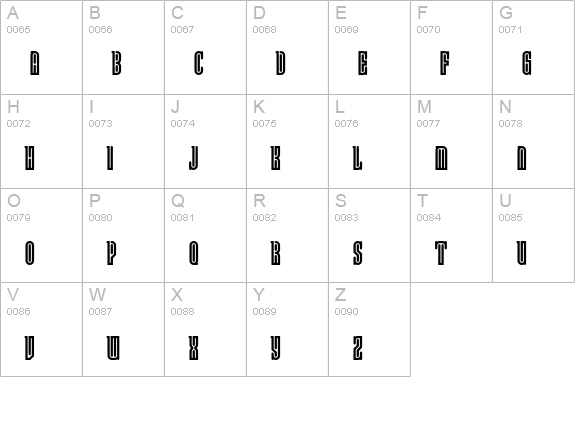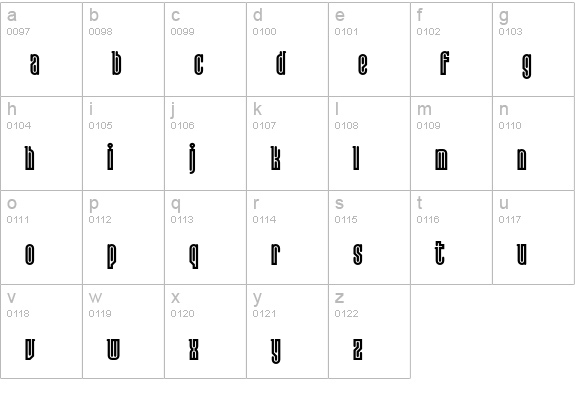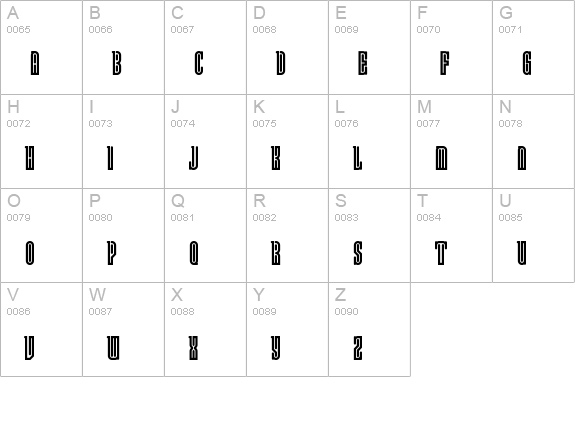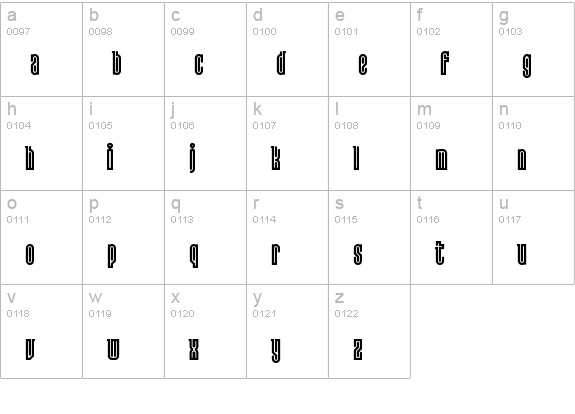
Introducing Lusta-EightySerif font, a stylish and sophisticated typeface that exudes elegance and charm. With its unique serifs and timeless design, Lusta-EightySerif is perfect for adding a touch of class to your projects. Whether you're creating invitations, branding materials, or editorial content, this font will elevate your work to new heights. What sets Lusta-EightySerif apart is not only its classic appeal but also its versatility. This font can effortlessly transition from formal to more casual settings, making it a go-to choice for designers looking to make a statement. Its legibility and readability ensure that your message is conveyed clearly and effectively. And the best part? Lusta-EightySerif is available for free download at FontsMarket.com. Now you can add this stunning font to your collection without breaking the bank. Don't miss out on the opportunity to enhance your designs with Lusta-EightySerif's timeless beauty and sophistication. Download it today and let your creativity shine!